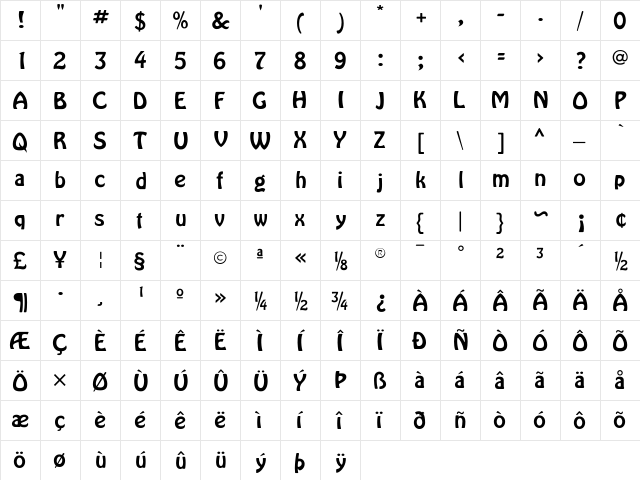
HarlequinFLF Regular
Design Context for HarlequinFLF Typeface
HarlequinFLF is a composed and adaptable typeface that performs quietly and consistently across a wide range of design contexts.